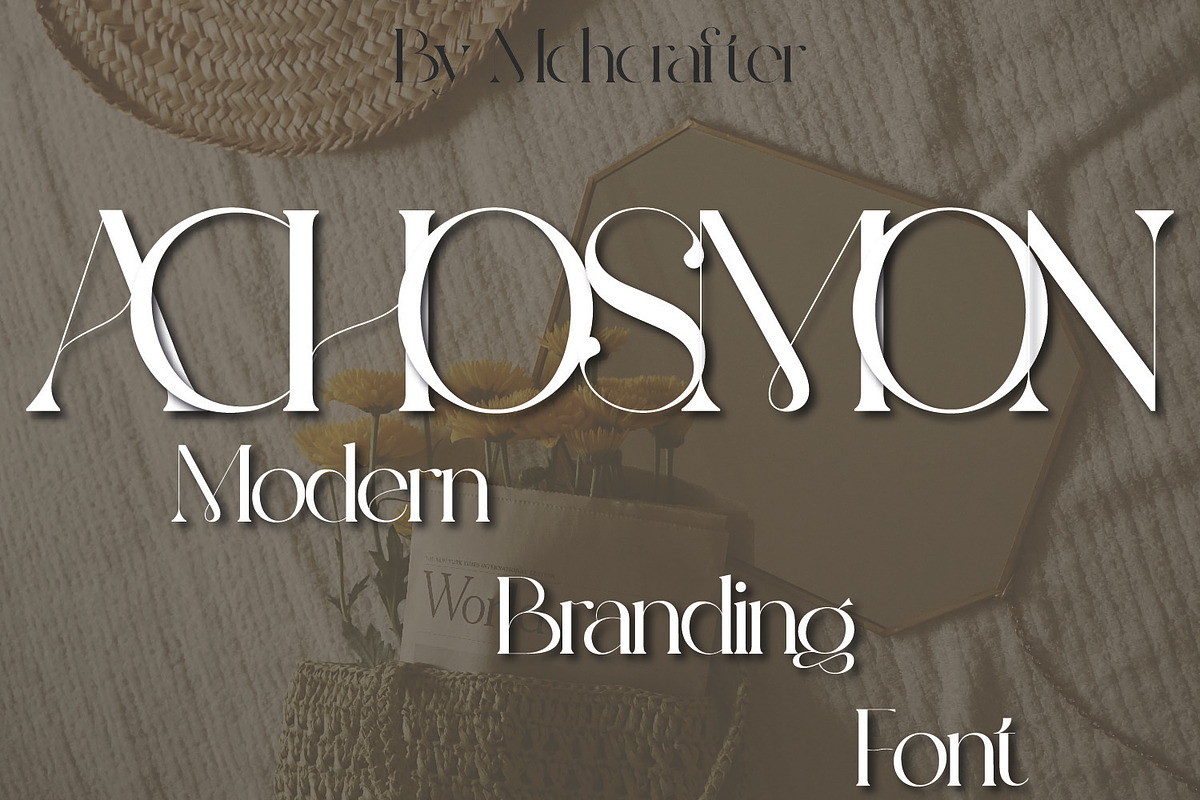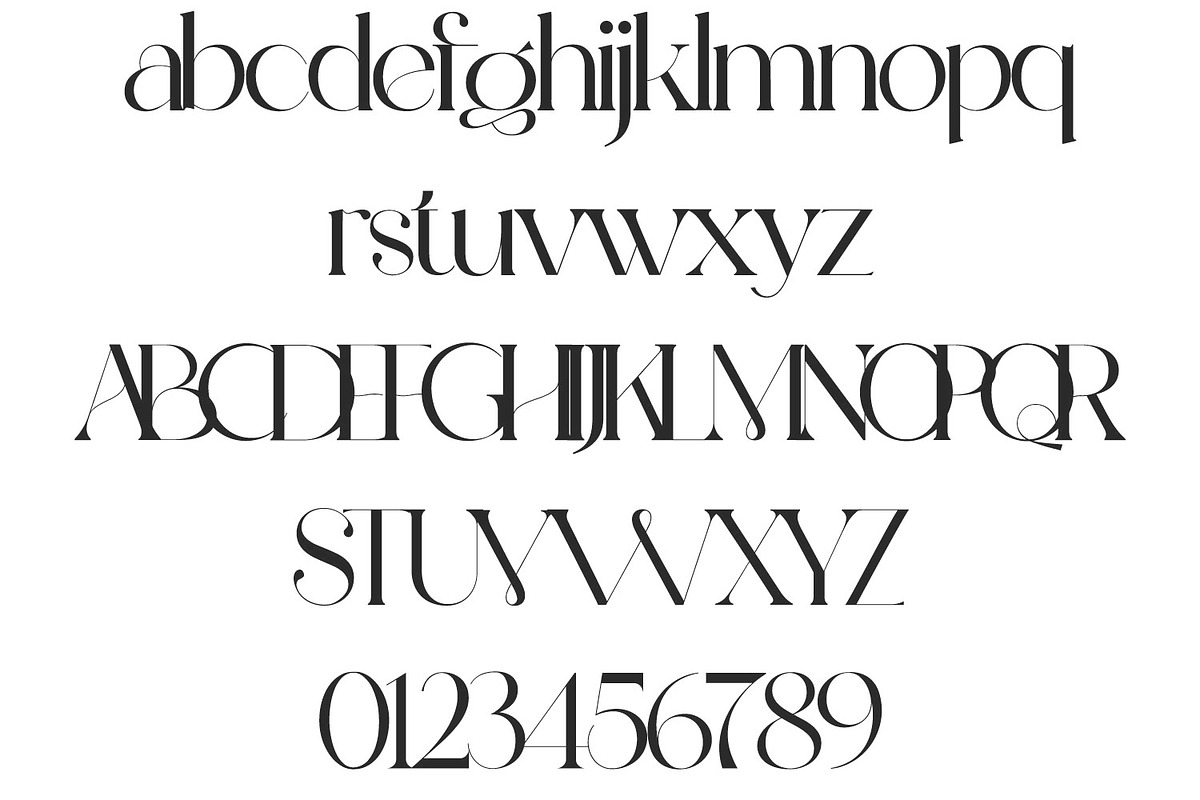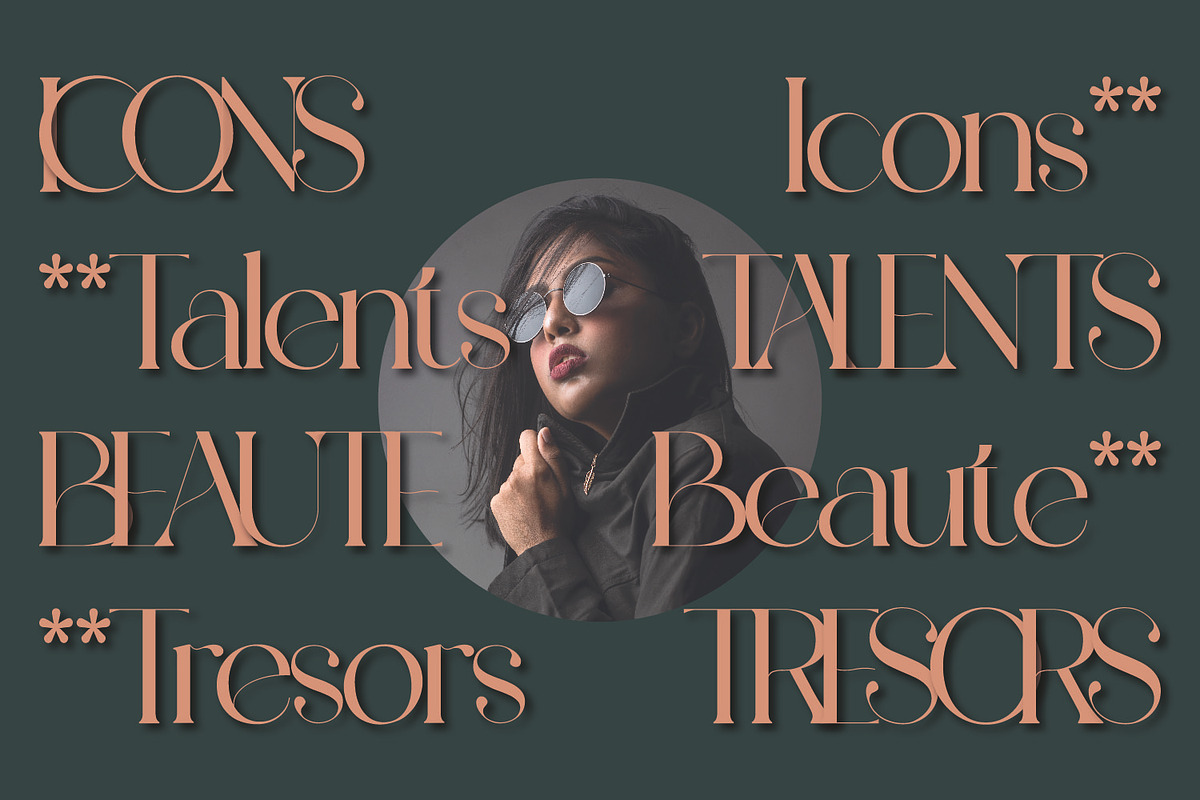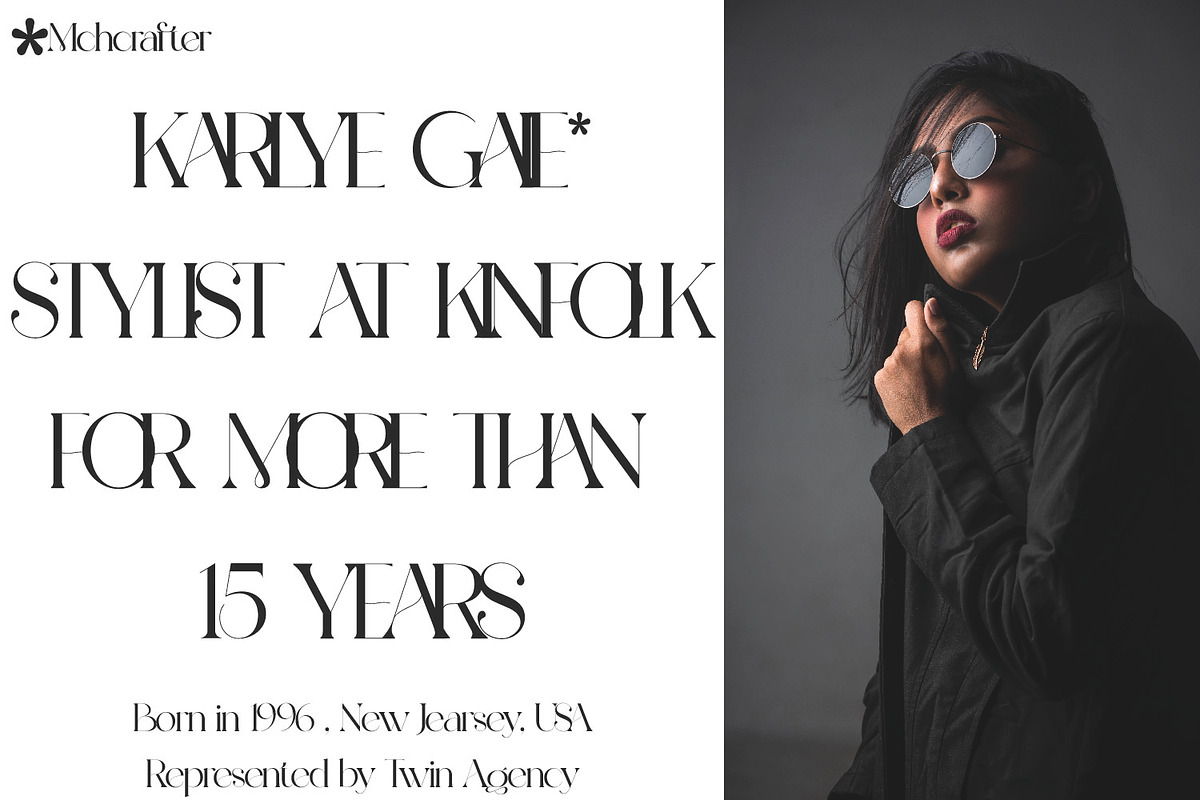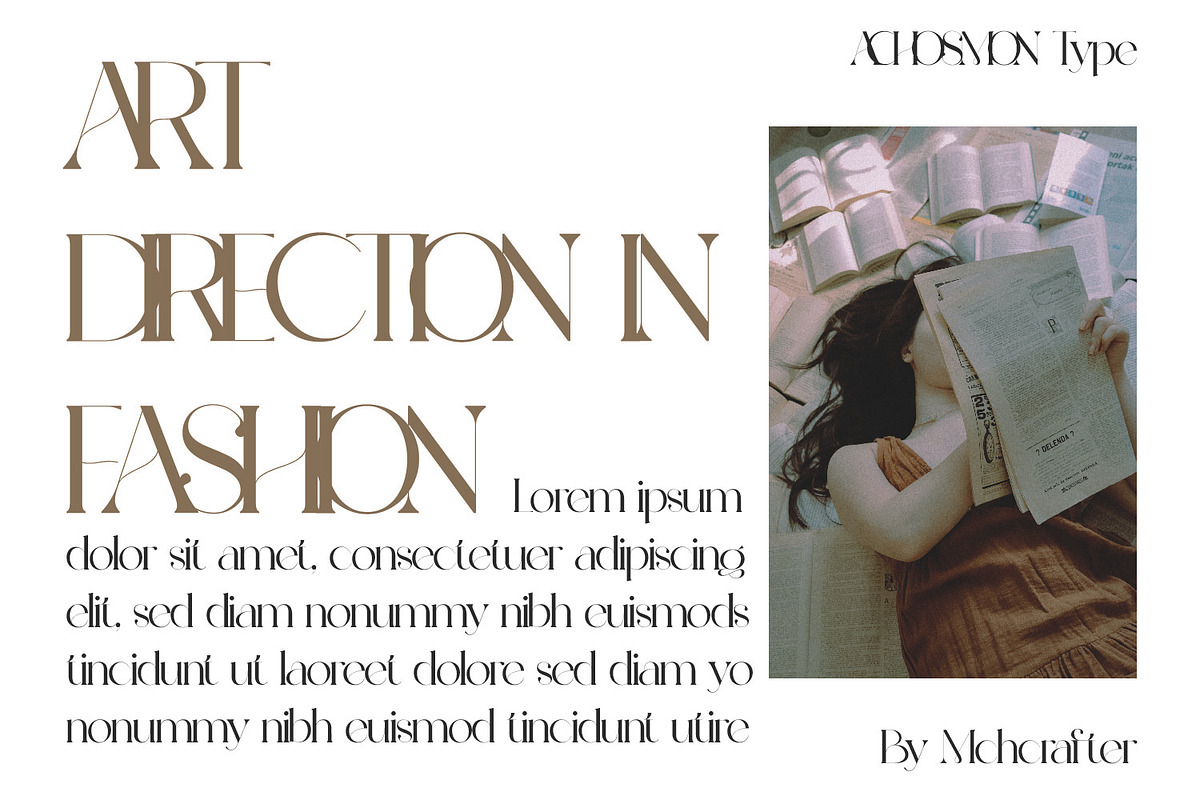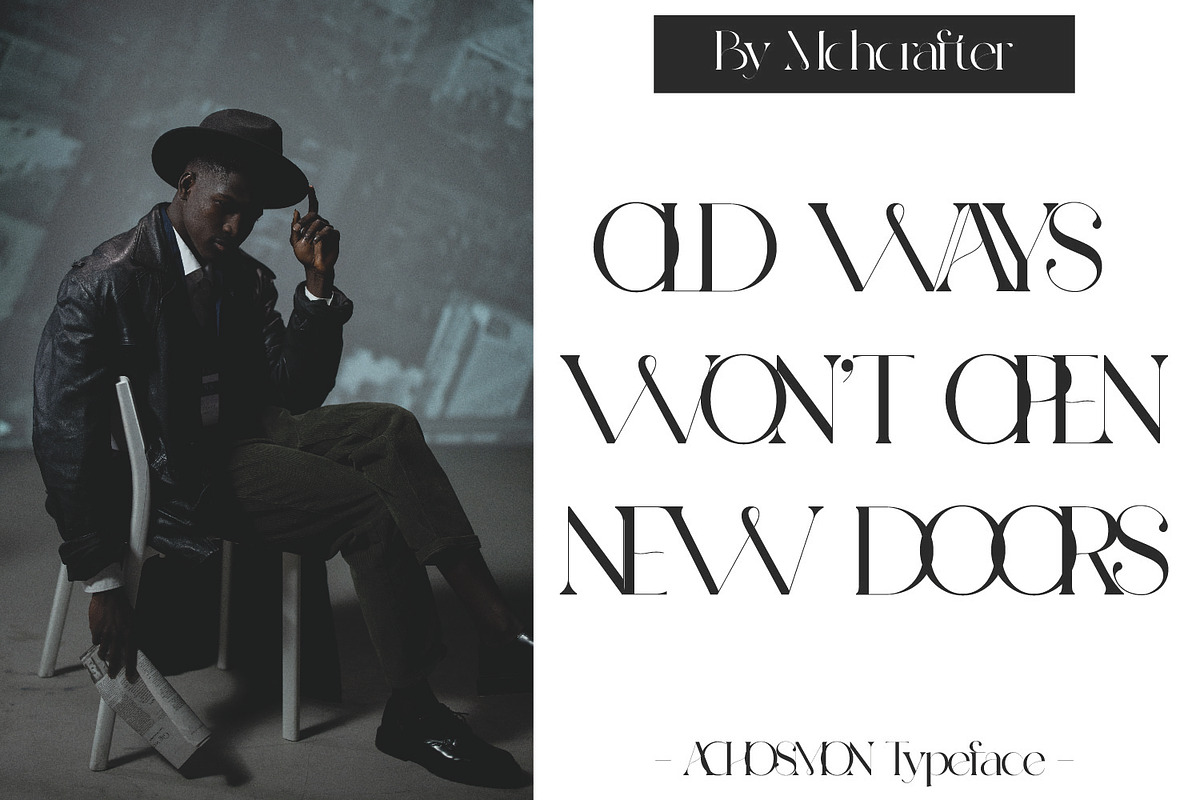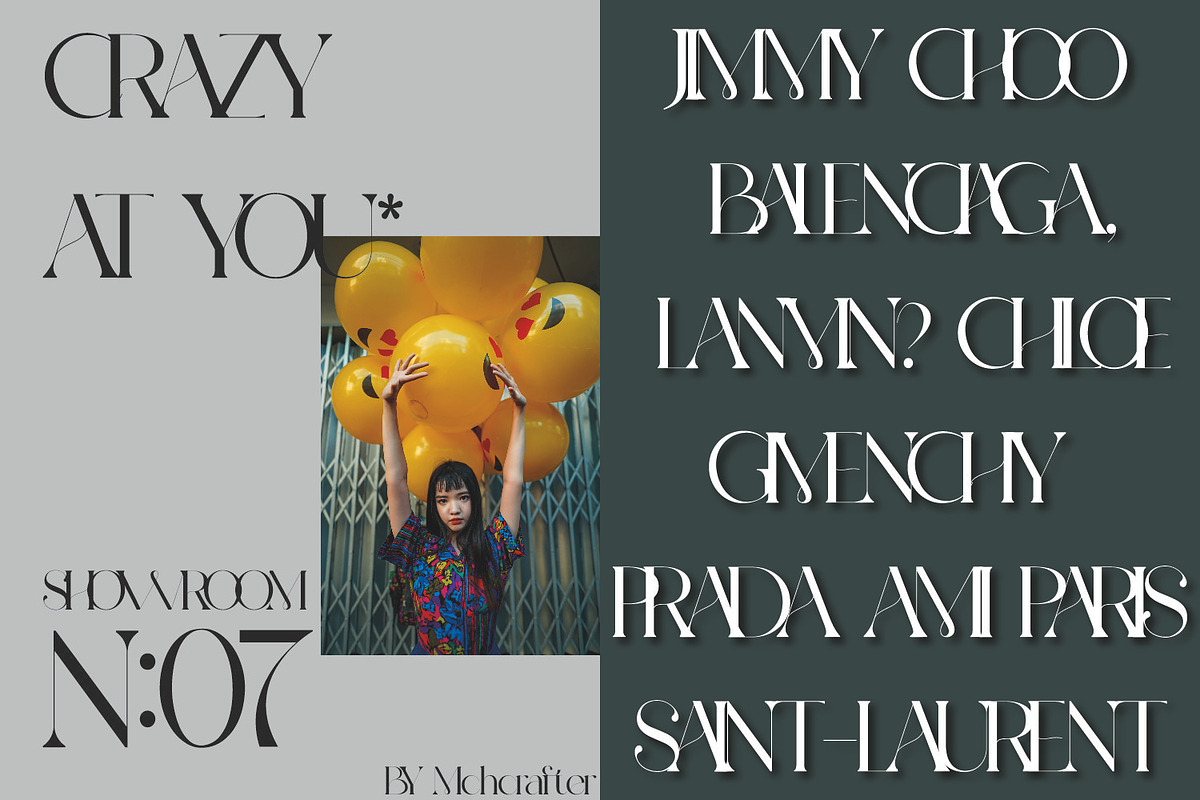
ACHOSMON | Modern Branding Typeface
ACHOSMON font is a Modern Stylistic Serif typeface A new serif that we created specially for branding needs, with special kerning style just to add value to your brand. It so nice to leverage designer or product owner that need solutions to make their design look more stylish and modern.
ACHOSMON font includes:
- All uppercase & lowercase letters
- All numbers 0-9 & Punctuation